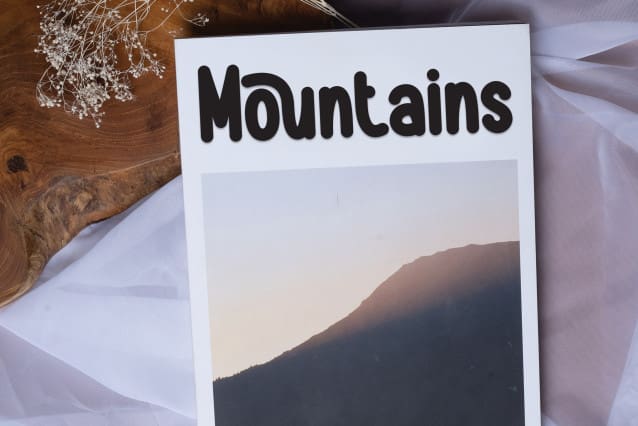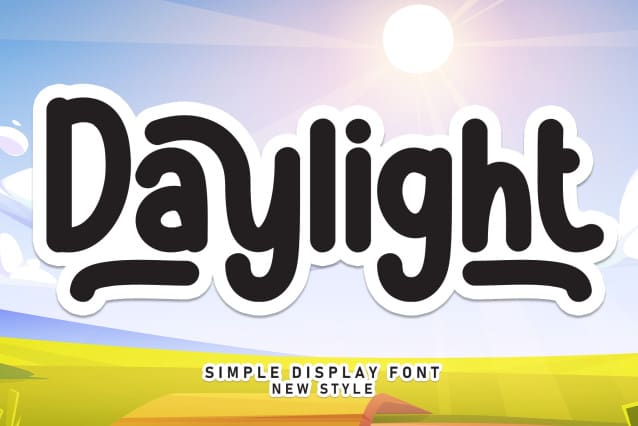
Daylight Display Font
Daylight Display Font is a display font and it features a modern and minimalist design, making it versatile for a wide range of design applications. The font’s versatility makes it suitable for a wide range of design projects, including branding, editorial layouts, web design, packaging, and signage.